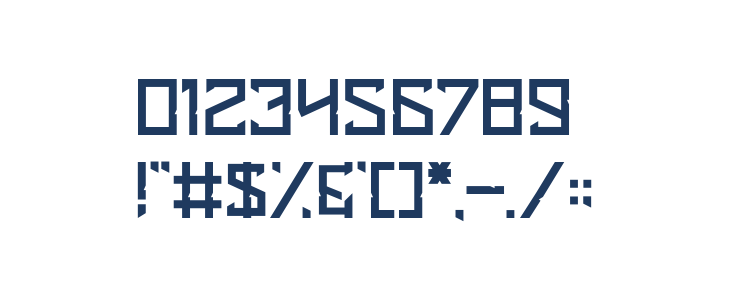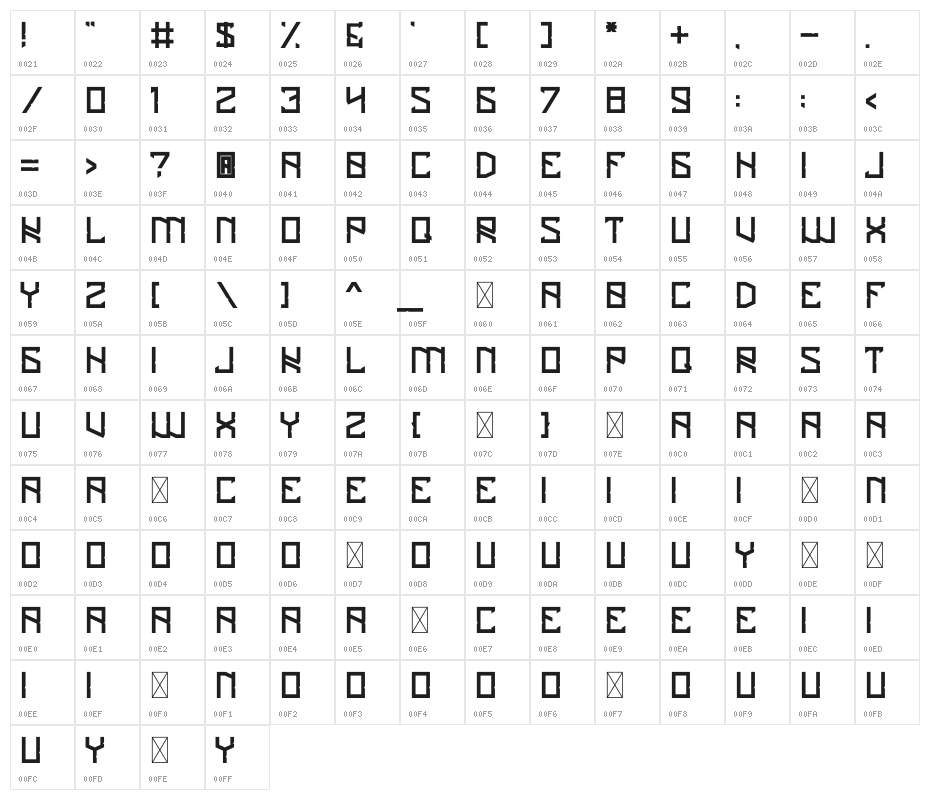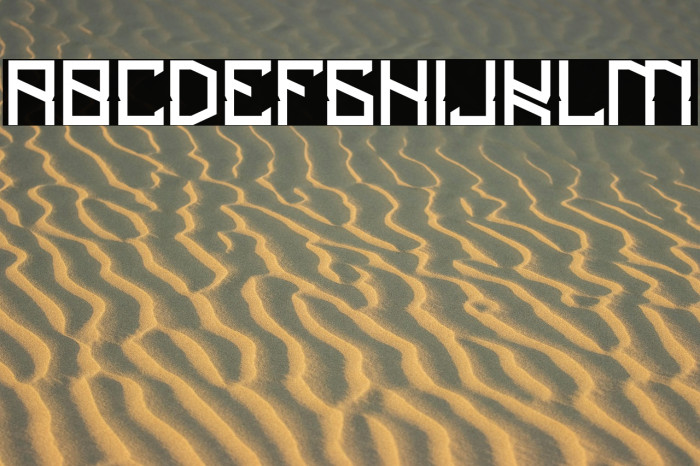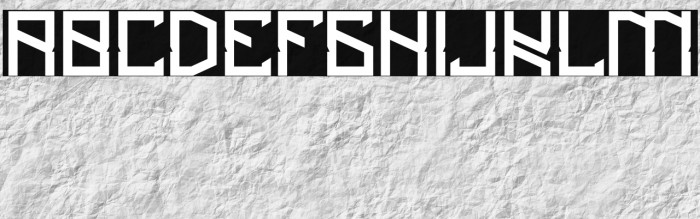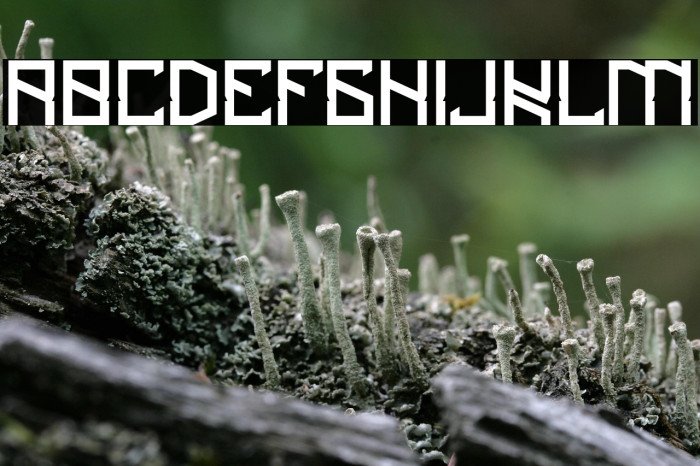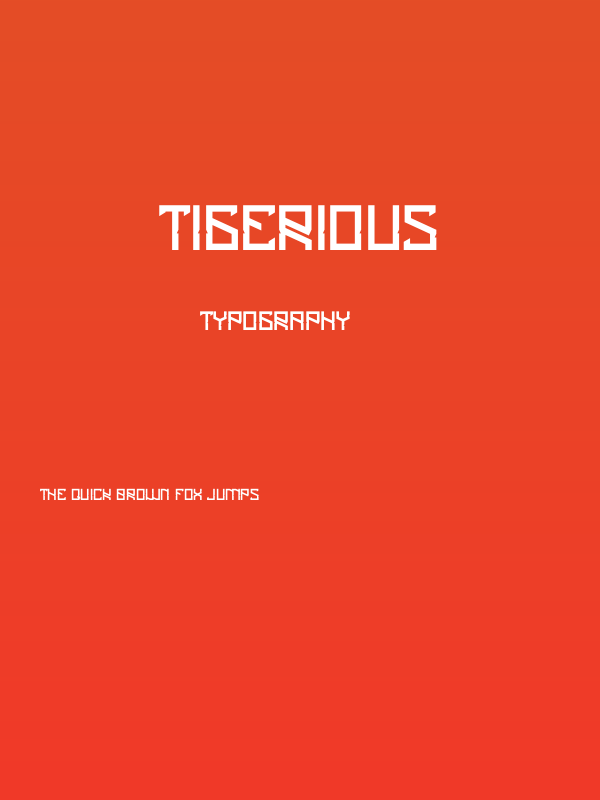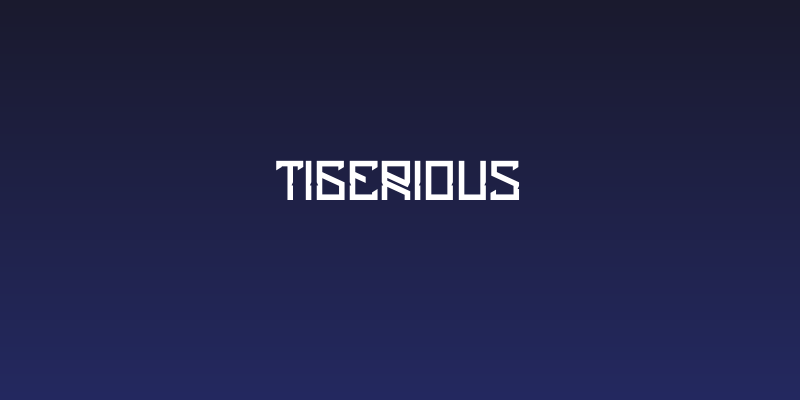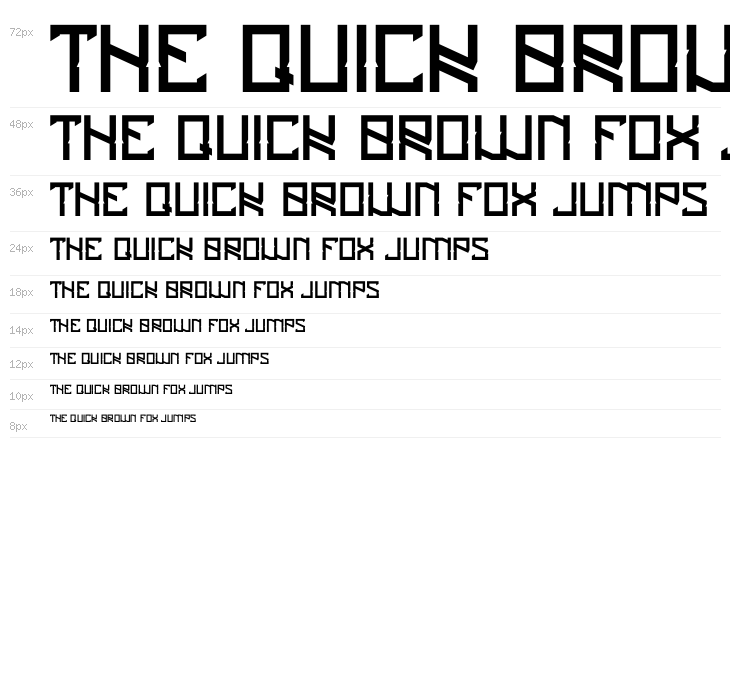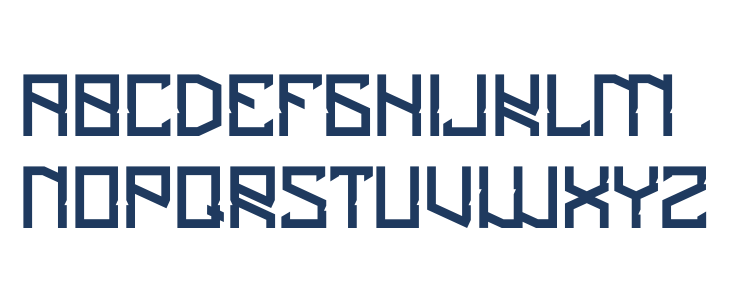
Tigerious Font
Tigerious Description
This font exhibits a bold and angular design, characterized by its geometric and sharp-edged letterforms. The uppercase and lowercase letters maintain a consistent height, creating a uniform appearance. The strokes are thick and consistent, contributing to a strong visual impact. The font's unique style is further emphasized by its distinct cut-out sections within each character, adding a modern and edgy feel. The numerals and special characters follow the same design principles, ensuring cohesion across all elements. This font is ideal for projects that require a bold and futuristic aesthetic.
| Proposed Projects | Ideal for branding, posters, video game graphics, and futuristic-themed designs. |